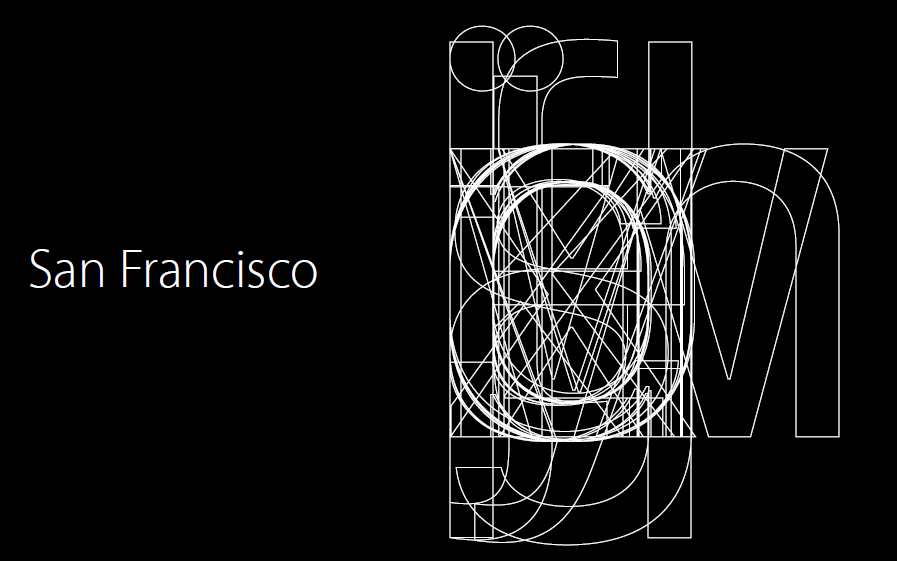
San Francisco or Helvetica Neue?
Curious as to opinions on San Francisco.
I was obsessed with it for a while.
But I thought Helvetica Neue is a lot more stylish, simple, efficient, and less obstrusive after a while.
What do you guys think?
San Francisco has grown on me completely. Going back to Helvetica feels almost as weird as going back to Veranda from Helvetica.
SF was really weird in the beginning, but I've gotten used to it.
Helv is a better font in general but SF looks better on the UI.
But most rich text content on Safari, text in some apps and in the App Store is mostly Helvetica. It's a little inconsistent if you ask me.
Nevertheless, San Francisco is still a pretty good font.
San Francisco is definitely better. Helvetica Neue was always just a bad interims solution for the iOS 7 redesign.
Although, as a typographer who worked close to industrial designers at university, i wasn’t really surprised Jony Ives Team chose Helvetica, because most Industrial Designers know only a handful of fonts and default to Helvetica because it looks reasonably timeless and neutral to them. It’s really reassuring about Apples design team that they took the multiyear-path of developing their own modern font-family fit for the purpose. I think Erik Spiekermann really did have a little influence on Jony Ive to get SF ready and into the system so soon. Besides the fact that it would have been really hard to get Helvetica Neue working on the Apple watch at small, glanceable font sizes.
San Francisco is definitely better. Helvetica Neue was always just a bad interims solution for the iOS 7 redesign.
Although, as a typographer who worked close to industrial designers at university, i wasn’t really surprised Jony Ives Team chose Helvetica, because most Industrial Designers know only a handful of fonts and default to Helvetica because it looks reasonably timeless and neutral to them. It’s really reassuring about Apples design team that they took the multiyear-path of developing their own modern font-family fit for the purpose. I think Erik Spiekermann really did have a little influence on Jony Ive to get SF ready and into the system so soon. Besides the fact that it would have been really hard to get Helvetica Neue working on the Apple watch at small, glanceable font sizes.
Even SF Compact (Watch) and SF (OS X/iOS) are noticeably different. When you change Helvetica that much so that it works well on smaller screens, you are changing the character of the typeface itself. Helvetica was never meant to be a multipurpose UI typeface. It’s been misused, just like Verdana is (which really shines at small sizes).
Exactly. Good fonts have lots of different cuts (not sure if this is the correct english translation) for different purposes. Apple did a very good job with the different sizes of SF, instead of just scaling the glyphs.
I voted for San Francisco, but I really think both are just fine.
San Francisco looks just different enough to freshen up the interface and make it a bit more readable. It's really a gorgeous experience, the numbers look sharp too.
Helvetica, however I understand why SF is getting more votes. It's the novelty atm so people aren't tired of it.
Indifferent on my mobile devices. I care more about it on OS X machines, where I'd vote for Helvetica.
Helvetica Neue has more class, style, refinement. However, for reading definitely San Francisco because is more spaced between each letter. But lacks of some design, class. The € symbol in San Francisco looks weird.
Curious as to opinions on San Francisco.
I was obsessed with it for a while.
But I thought Helvetica Neue is a lot more stylish, simple, efficient, and less obstrusive after a while.
What do you guys think?
I have the same opinion about the previous font. This one may be easier to read as there is more space in between letters, but the previous is way more stylish. I think it's a matter of time anyway. It's not a Comis Sans :-D
When it comes down to it: ease of reading > stylishness. Especially on such small devices.
And frankly, I believe that Apple has created a font that encompasses both.
I don't like how "blocky" SF looks compared to Helvetica. It doesn't look horrible but they could have made some subtle changes to make it look more distinct from Roboto
Helvetica is just better for reading content I suppose.
I like it visually and it is also one of the most intelligently designed fonts ever for digital rendering. Take a look at the 2015 WWDC talk "Introducing the new system font".